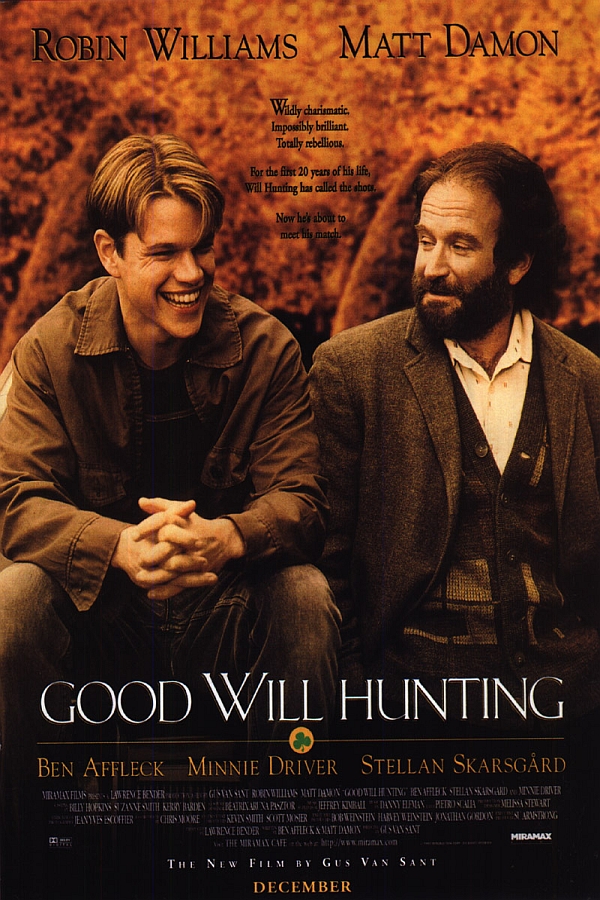
Good Will Hunting Font
DramaGood Will Hunting is a 1997 American drama film about a janitor with a genius-level IQ who is discovered by a psychologist and tries to come to terms with his past and future. The film stars Matt Damon and Robin Williams and was directed by Gus Van Sant.
The movie title on the poster features a font that is similar to Shango Regular designed by Jason Castle. Shango is an all-caps font that draws inspiration from the initials in Professor F.H. Ernst Schneidler's 1936 Schneidler-Mediaeval mit Initialen classic design.